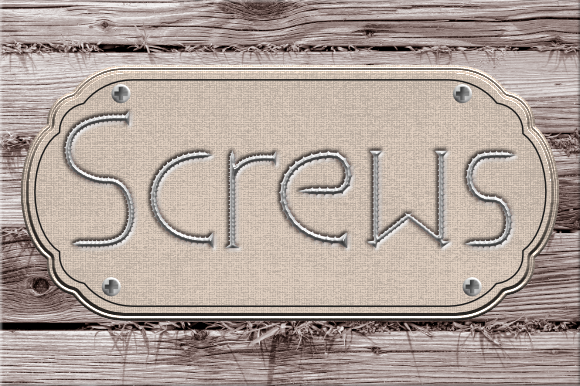
Screws Font
Unleash your creative vision with Screws Font, a captivating display typeface that will ignite your imagination. Inspired by the organic beauty of nature, Screws Font dances across the page, imbuing your designs with an irresistible charm. From bold headlines to elegant invitations, this font is a versatile chameleon that adapts seamlessly to any style.
Screws Font's unique character set, brimming with eccentric curves and unexpected angles, will leave an indelible mark on your audience. Its intricate details weave a tapestry of visual intrigue that commands attention and sparks conversation. Whether you're a seasoned designer or a budding enthusiast, Screws Font will empower you to create designs that resonate and captivate.
Embrace the whimsical nature of Screws Font and allow your creativity to flourish. Its playful spirit invites you to experiment and push the boundaries of design. Whether you're crafting a vibrant poster or a sophisticated brand identity, Screws Font will effortlessly elevate your vision.
Indulge in the endless possibilities that Screws Font offers. Its versatility extends from quirky social media graphics to polished presentations, ensuring that your message will always be conveyed with style and impact. As a display font, Screws Font is a master of attention-grabbing headlines, alluring logos, and thought-provoking quotes.
Don't settle for ordinary fonts that blend into the background. Choose Screws Font, the typeface that breaks the mold and sets your designs apart. Its distinct character will infuse your creations with a touch of the extraordinary, leaving a lasting impression that will turn heads and captivate hearts.
Unlock the full potential of Screws Font today and embark on a typographic adventure that will redefine your creative expression. Its organic charm and unparalleled versatility will empower you to create designs that ignite imaginations and leave an enduring legacy.